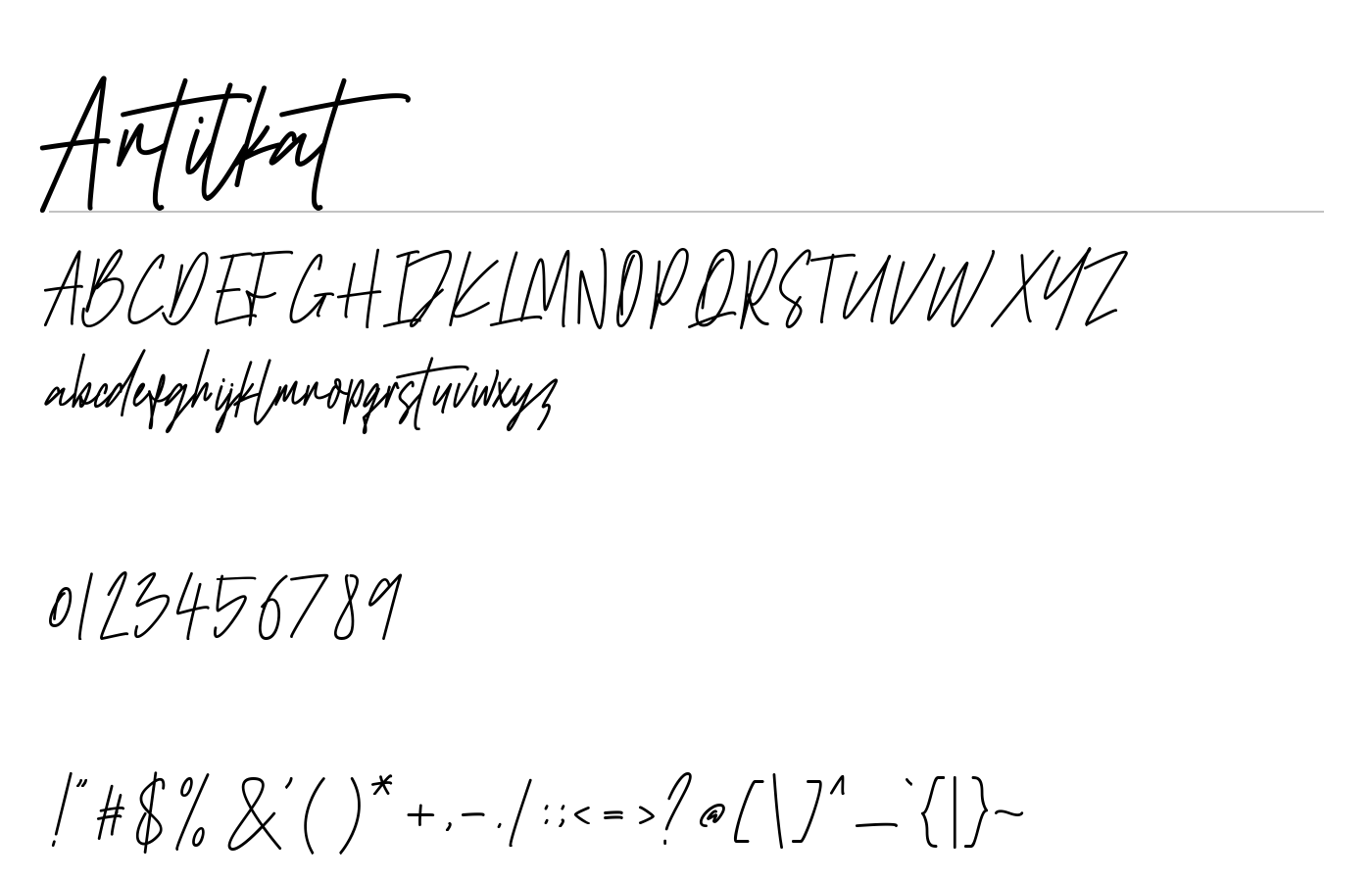
Antilkat is a slender, handwritten script font with a casual and modern feel. Its tall, narrow letterforms with varying stroke widths give it an airy and stylish appearance, making it ideal for creative branding, personal projects, and fashion-related designs that seek a personal, authentic touch. This font works best for headlines, logos, or invitations where a touch of elegance and individuality is desired.
Antilkat Font
About Antilkat Font
| Font family | Antilkat Font |
| Designer | Ahmad Khaidir |